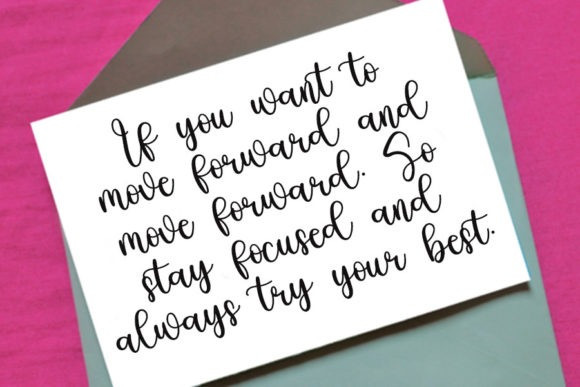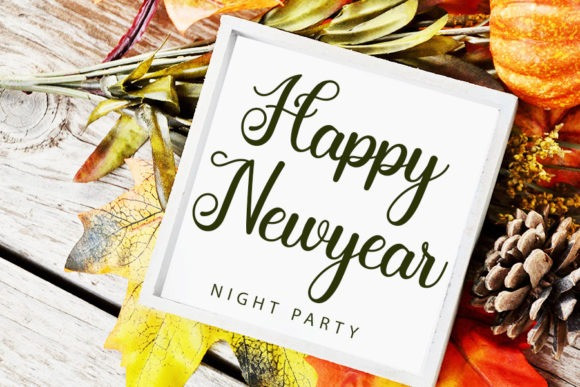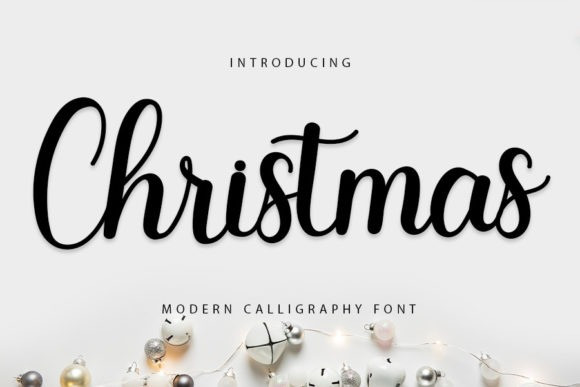
Christmas Font
Christmas Script Font is a beautiful and charming handwritten font. It is suitable for your various business needs, including shirt designs, logos, banners, and others. Apart from that, this font is easy to use on Windows and Mac OS devices. The beauty of this font will make your business look beautiful in the market.